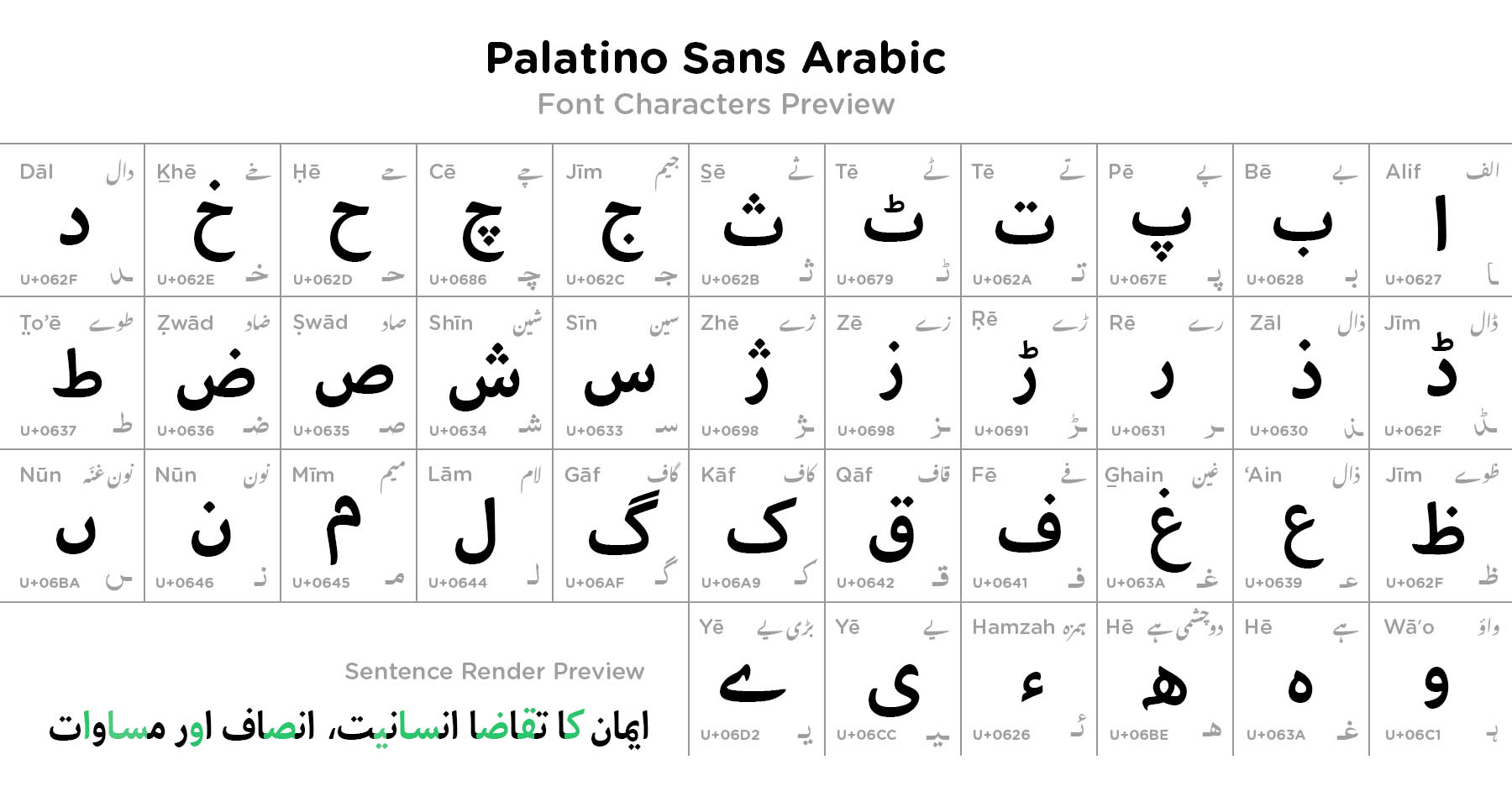
Palatino Sans Arabic, created by Professor Hermann Zapf and Nadine Chahine, is an example of their dedication to global typography. It was launched by Linotype which is a well-known typography foundry on 21st October, 2016. This new sans has the traditional proportions but has a softer, less noticeable modification, giving it a more accessible, informal face that works well in anything from books to package design. It is a modern take on the traditional Naskh style that successfully blends formal and casual elements. It comes in two different weights including:
It has a large character set of 843 and 1217 number of glyphs, making it a diverse font. Typographers and designers have always favored the large Palatino Sans family. Perfect proportions, well-designed letterforms, and the ideal ratio of modern to traditional. The characters are made up of smooth, curved strokes, offering a more contemporary and streamlined appearance. The strokes maintain a uniform thickness throughout, contributing to the overall clarity and stability of the font. Palatino Sans Arabic has 2 weights, Bold and Regular therefore can be used to write long plain texts as well to make attractive attention-grabbing headings.